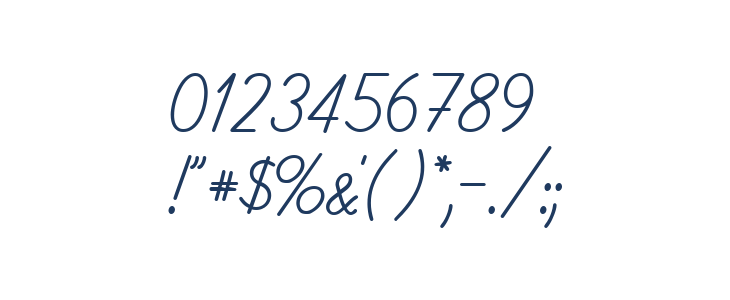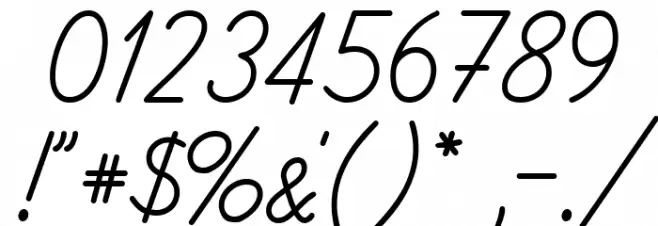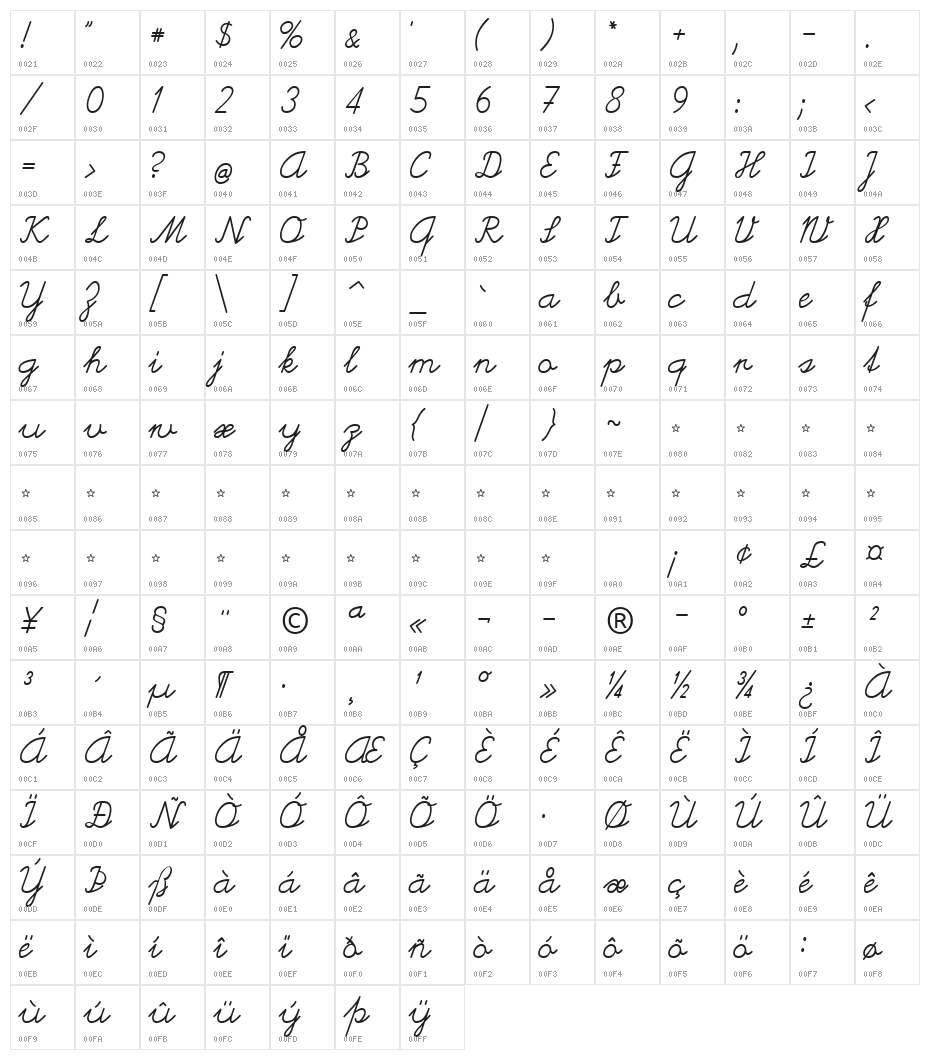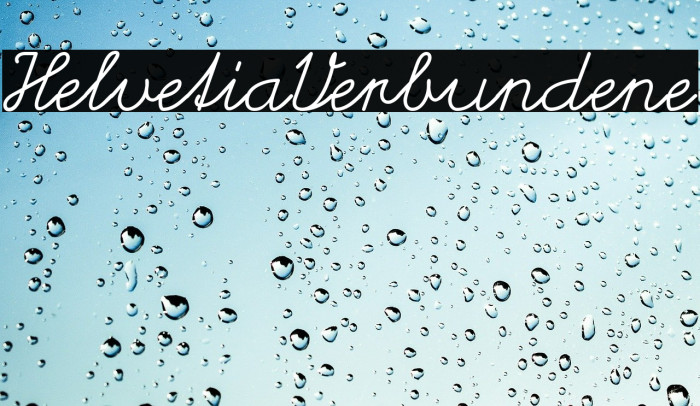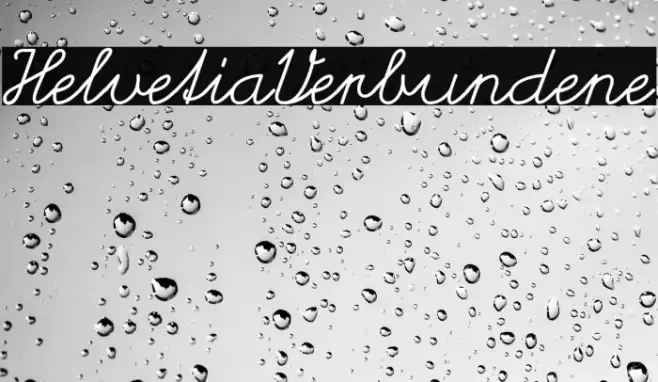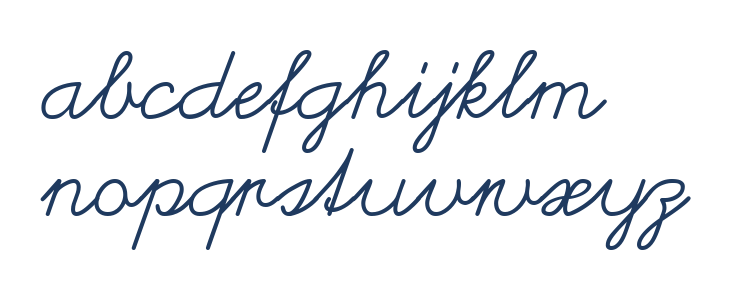
HelvetiaVerbundene Font
HelvetiaVerbundene Description
This font features a connected, cursive style that exudes elegance and fluidity. The letters are designed with a consistent slant, giving it a dynamic and flowing appearance. The uppercase letters are slightly larger and more pronounced, while the lowercase letters maintain a uniform height, contributing to a harmonious look. The numerals are distinct yet blend seamlessly with the alphabet, and the special characters are crafted to match the overall cursive theme. This font is ideal for projects that require a touch of sophistication and grace.
| Use Case | Headlines, Invitations, Signatures |
| Proposed Projects | Ideal for wedding invitations, elegant branding, personal signatures, and decorative headings. |